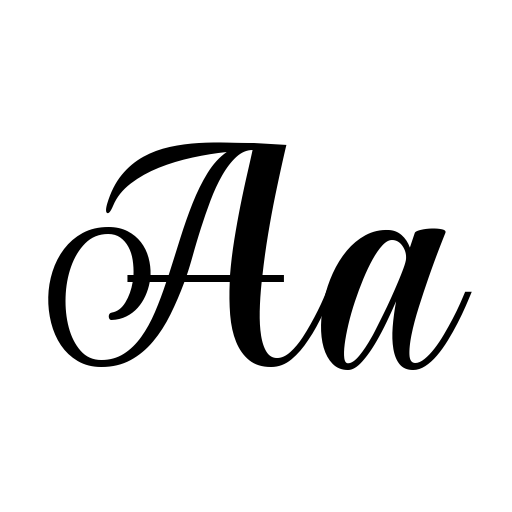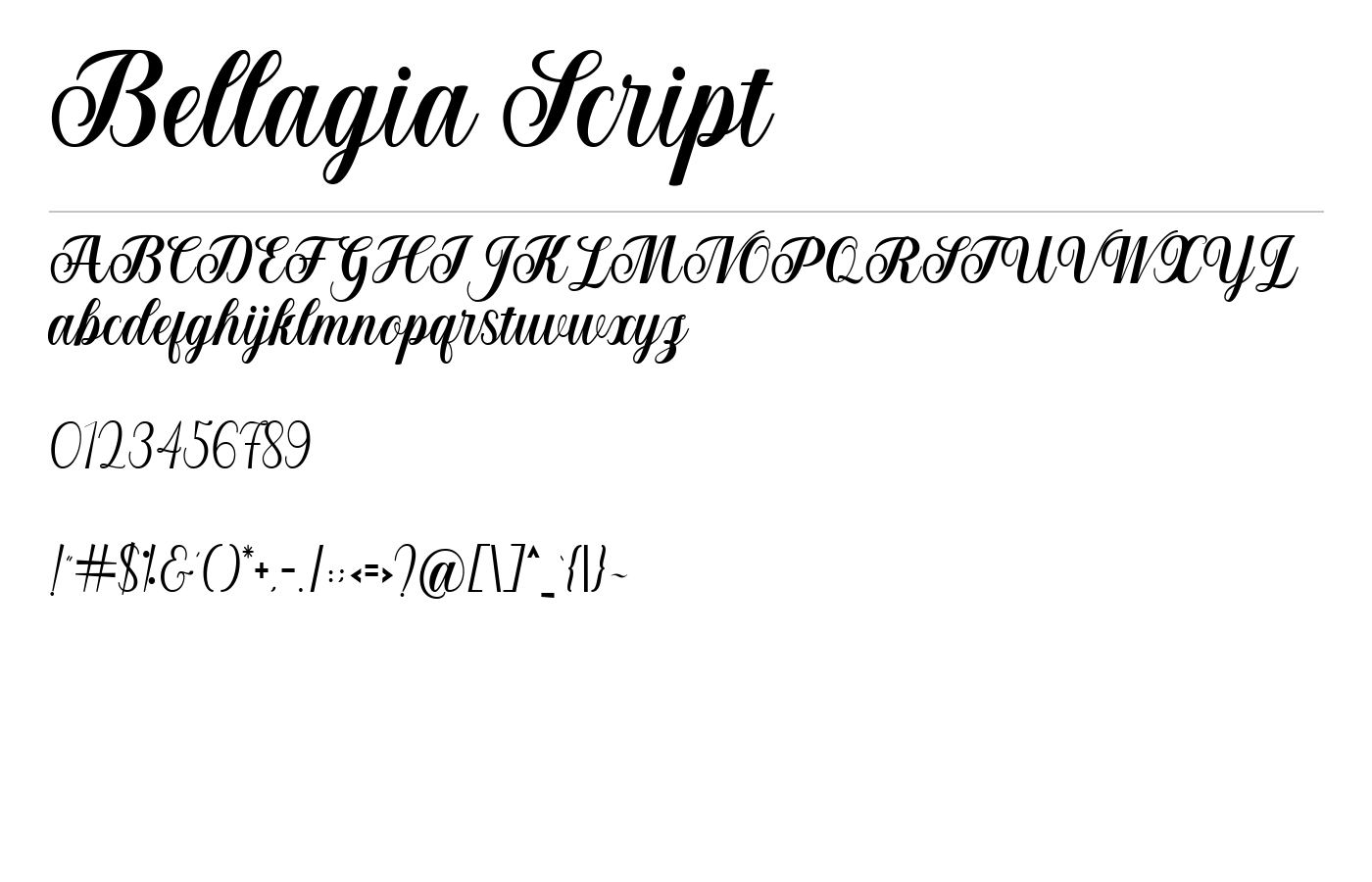
Bellagia Script is an elegant and refined script font with smooth, flowing strokes that create a sophisticated yet approachable feel. Its moderate contrast and graceful letterforms make it perfect for luxury branding, invitations, and stylish headlines where a touch of classic charm is desired. This font works beautifully in designs that need a blend of refinement and personality, adding a timeless, elegant flair.
Bellagia Script Font
About Bellagia Script Font